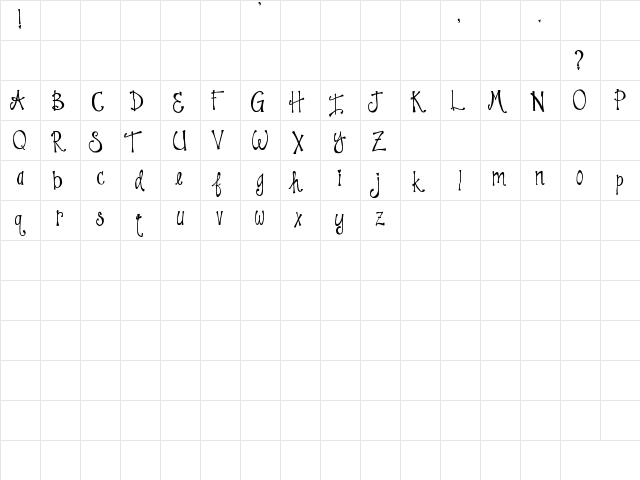
Pretty Purkey Regular
Design Context for Pretty Purkey Typeface
Pretty Purkey is a composed and adaptable typeface that performs quietly and consistently across a wide range of design contexts.